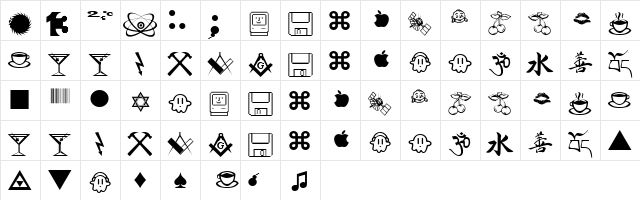
13_Inka Regular
Foundry: 13th Degree
Designer: Zane Townsend
Design Context for 13_Inka
13_Inka is a composed and adaptable typeface that performs quietly and consistently across a wide range of design contexts.